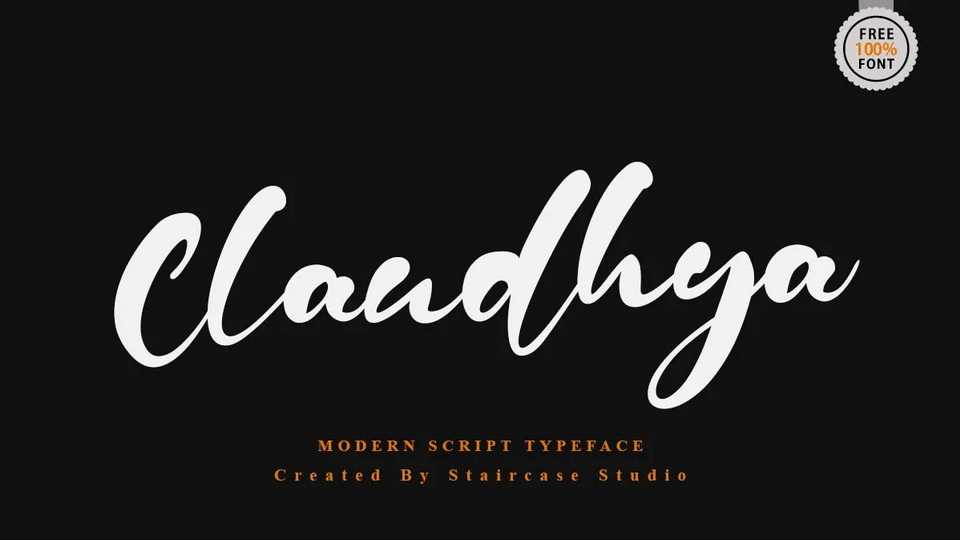
Download Claudhya font, a lovely modern calligraphy script typeface with a natural look. Claudhya font is perfect for logotype, branding design, digital lettering arts, magazine, ads and any design needs.
Designer: Staircase Studio